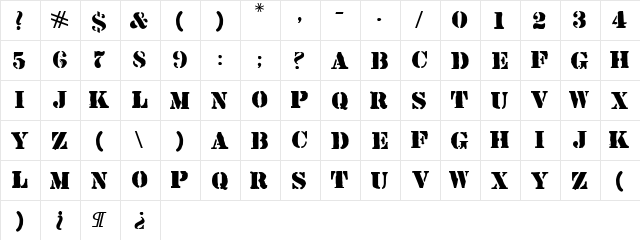
Rainmaker Regular Font Preview
Rainmaker Regular
Rainmaker Regular Font Details
| Foundry | CONIGLIO USA |
Design Context for Rainmaker Typeface
Rainmaker is a composed and adaptable typeface that performs quietly and consistently across a wide range of design contexts.